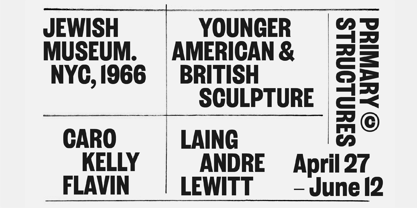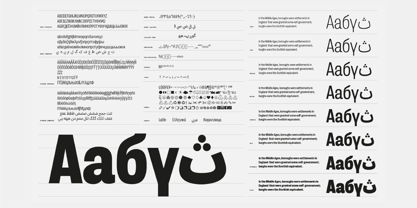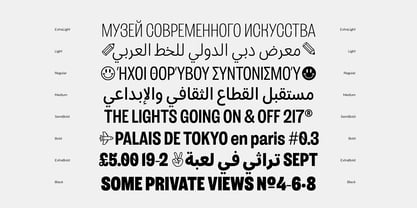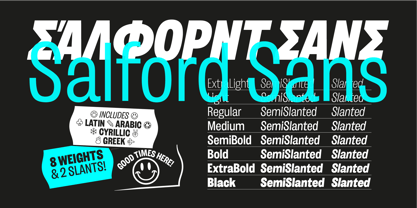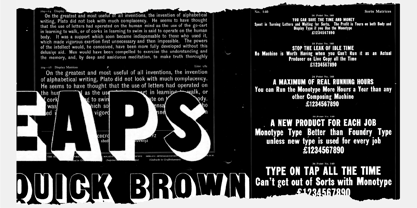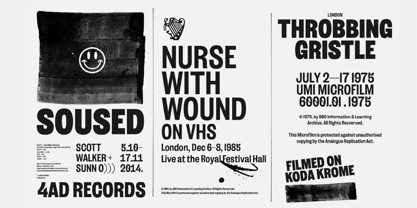
Salford Sans
by Manchester Type Foundry
The Salford Sans Font Family was designed by Lewis McGuffie, David Williams and published by Manchester Type Foundry. Salford Sans contains 24 styles and family package options. More about this family
Salford Sans has eight weights, slanted and semi-slanted styles, covers four scripts – extended Latin, monotonic Greek, Arabic, Cyrillic – and is made for the kind of headlines, editorial and display work which need to be serious, international and communicative but retain a touch of stylish, hand-made personality. Packed with symbols, tidy features, a variable slant axis and a range of local language features, Salford Sans is based on the traditional British style condensed sans serif. It's a robust, functional and elegant condensed sans – an update on a classic idea that works well the world over. Salford Sans Arabic can be purchased seperately without slanted styles.
Designers: Lewis McGuffie, David Williams
Foundry: Manchester Type Foundry